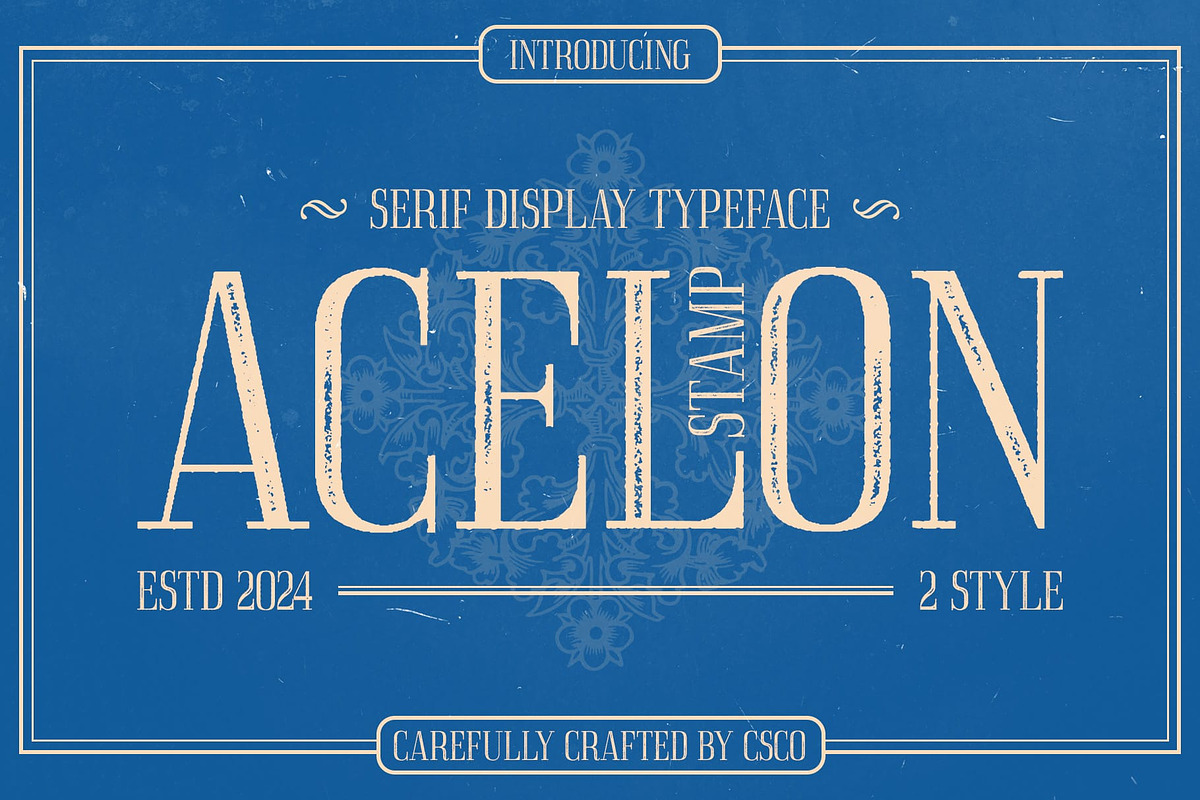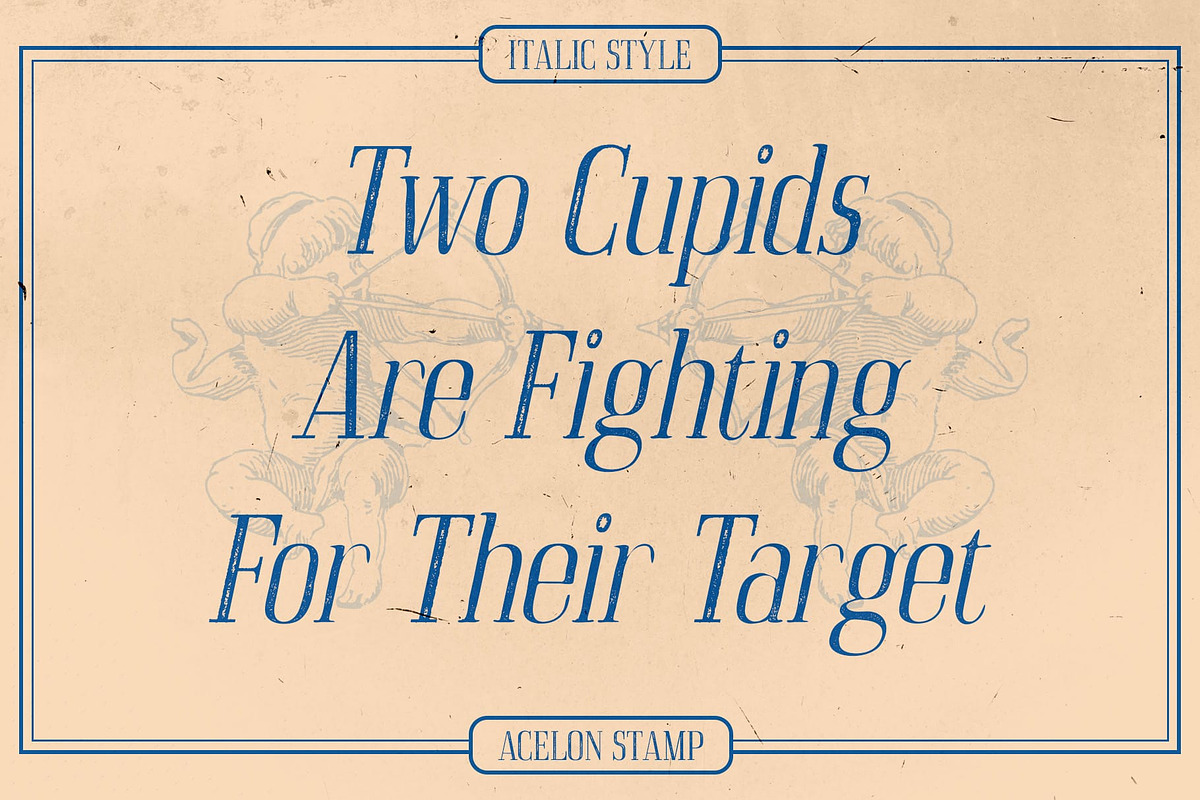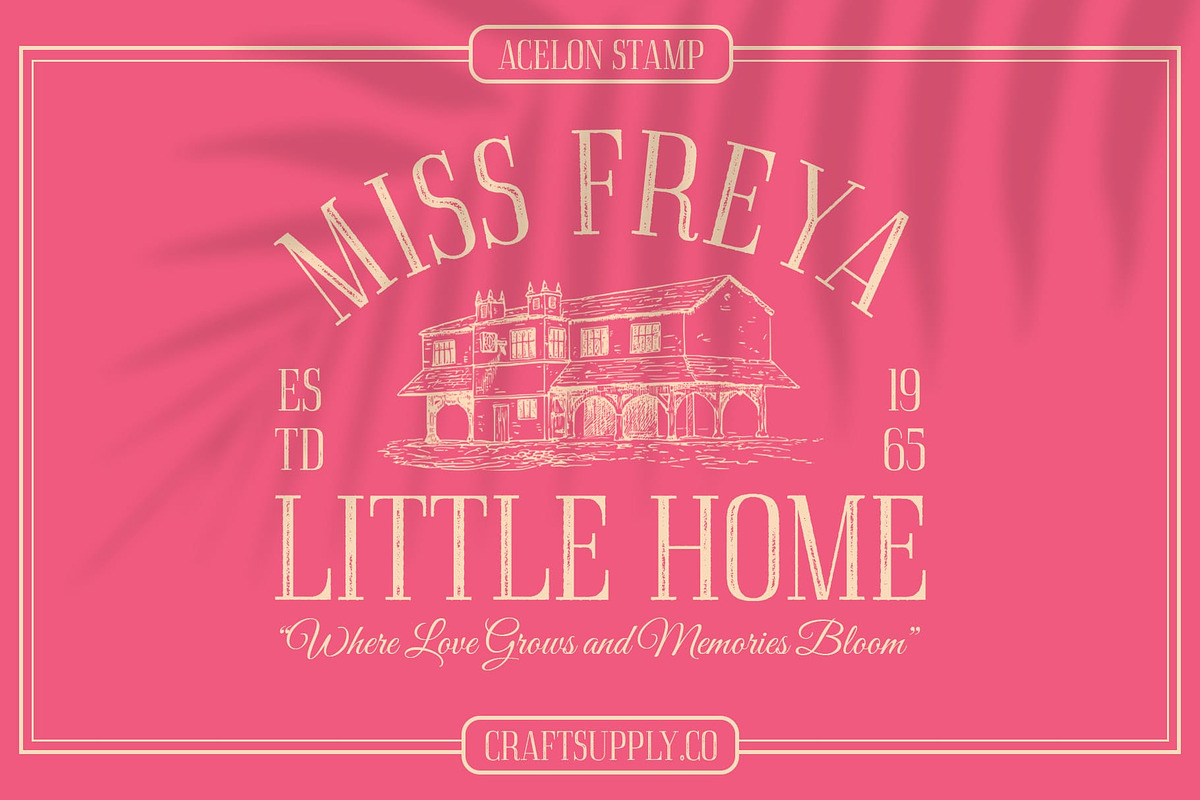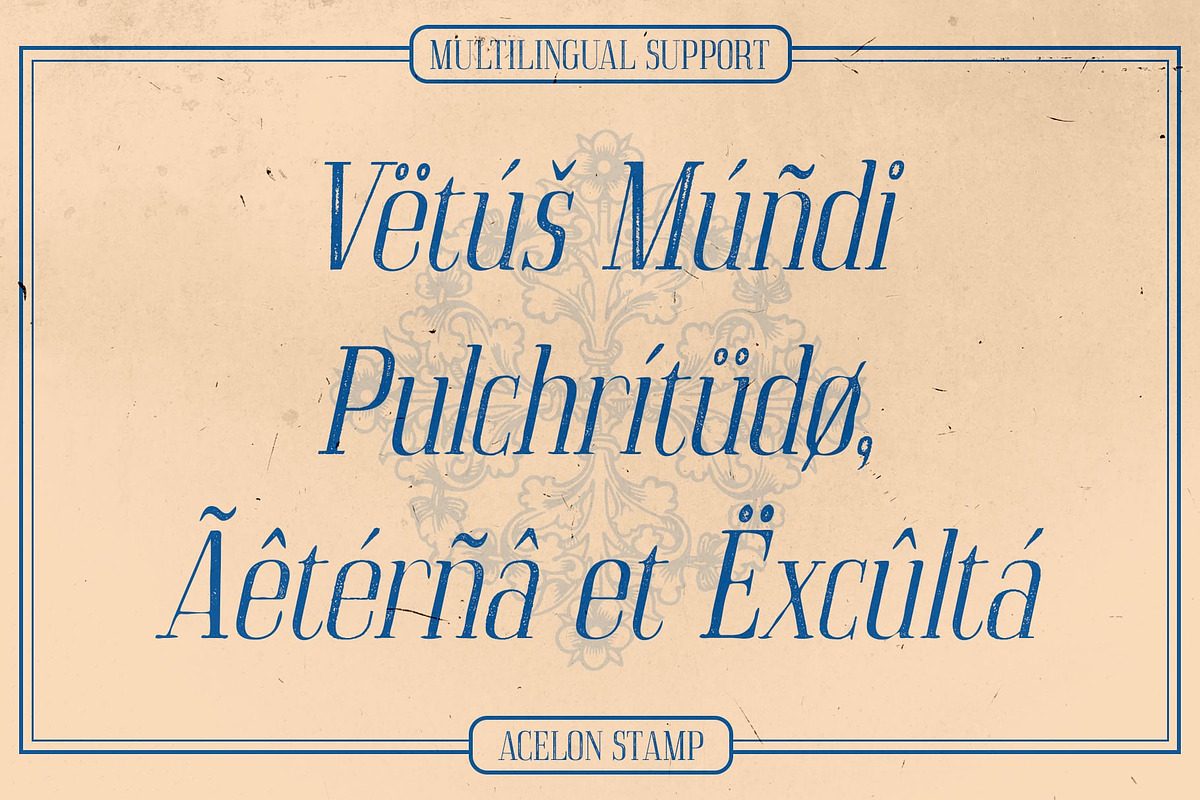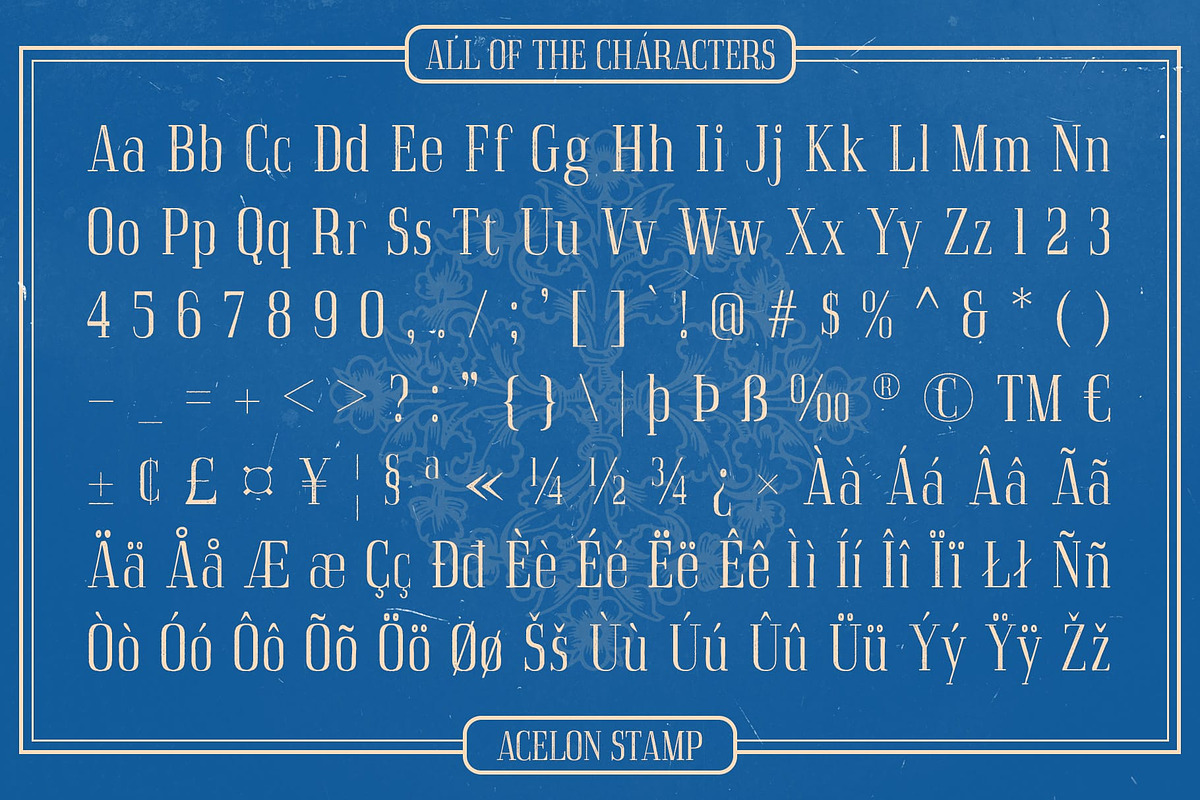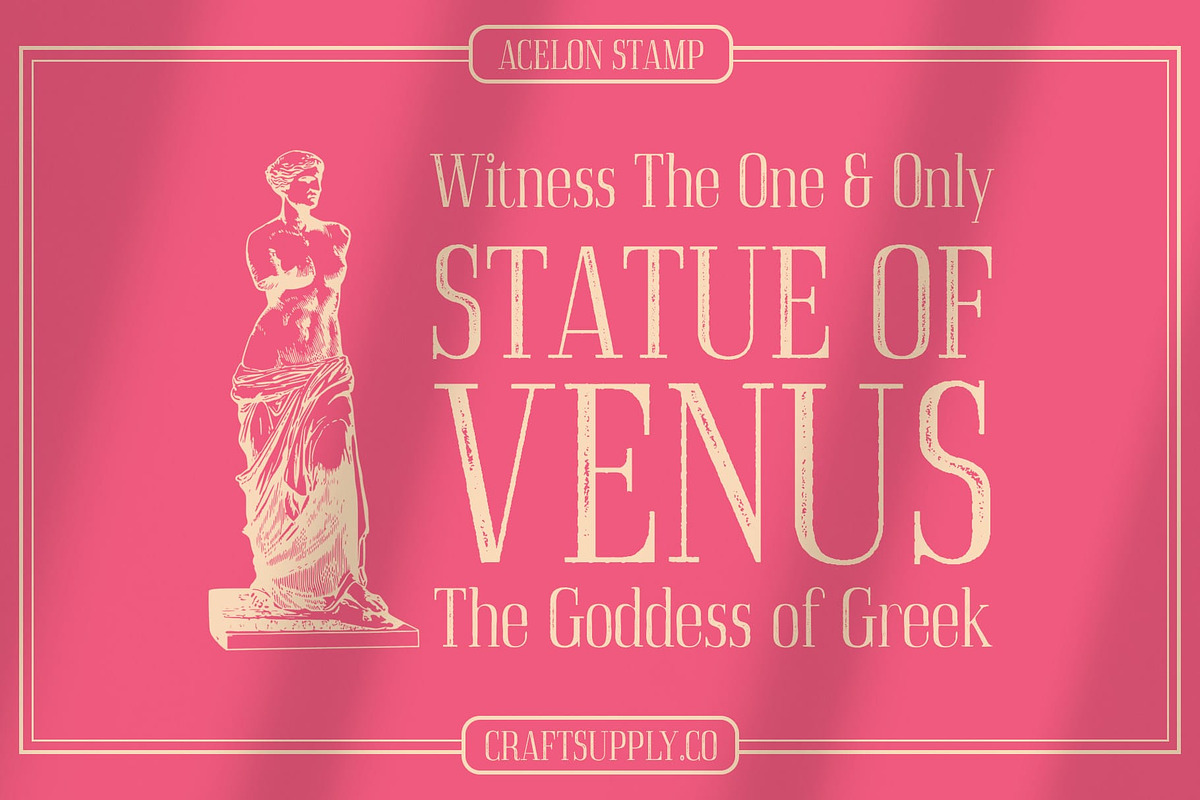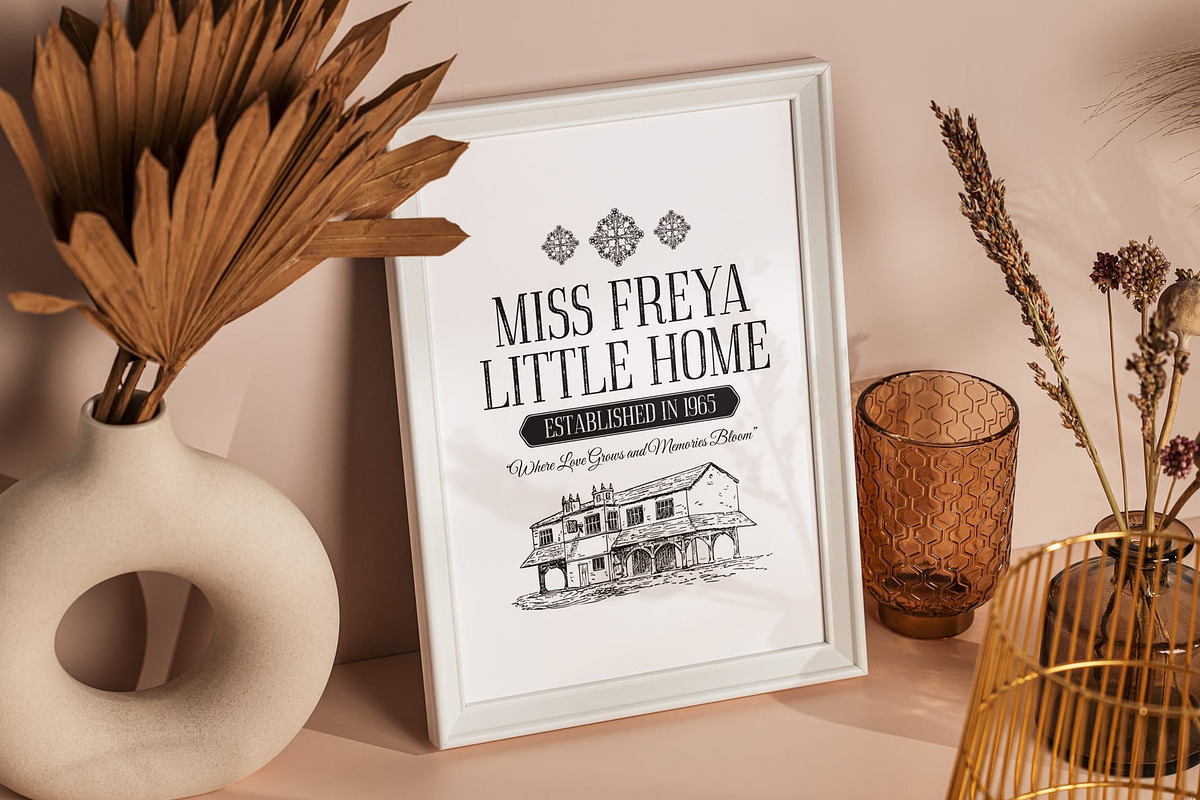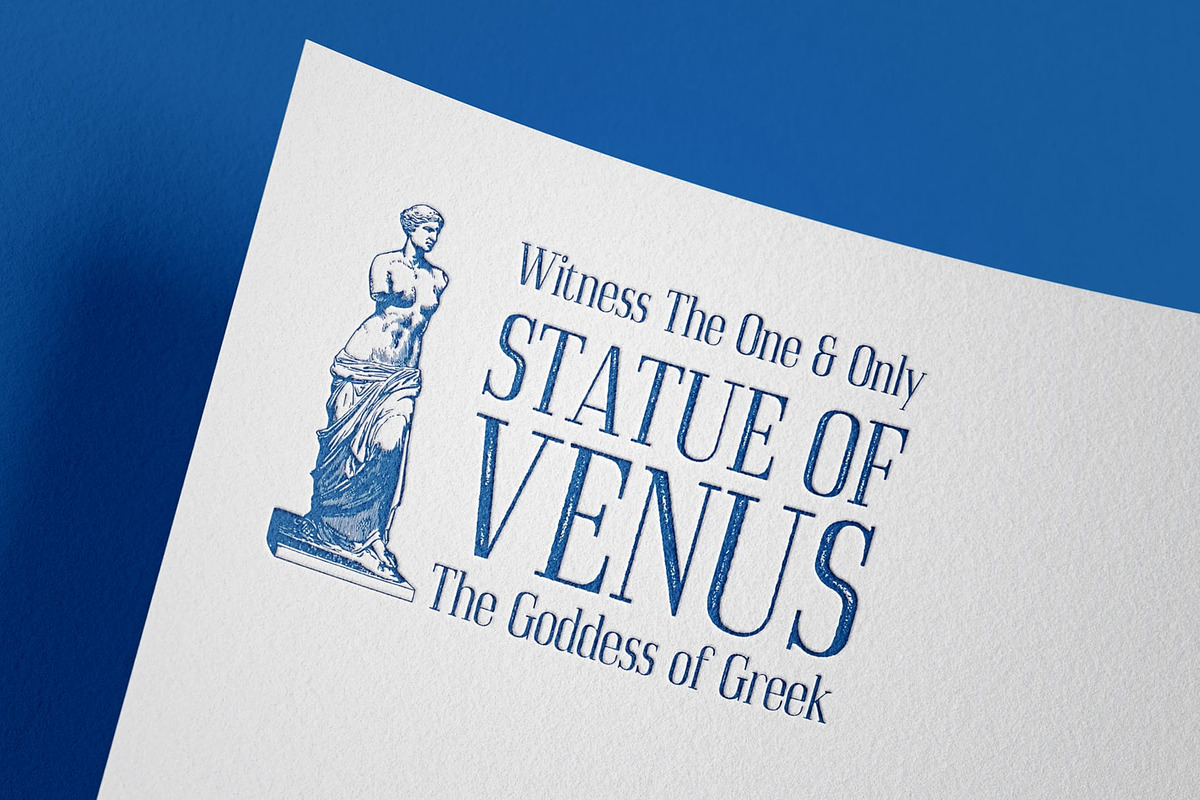
Acelon Stamp
Acelon Stamp Font: Modern Sophistication with Vintage Texture
Condensed Modern Serif with Rugged Stamp Effect Acelon Stamp is a modern serif font distinguished by its condensed design and narrow letterforms, offering a sleek and contemporary aesthetic. The font’s tight packing of letters creates a clean and sophisticated appearance, ideal for designs requiring a polished and professional look.
Vintage Tactile Quality with Rugged Texture The addition of a stamp effect introduces a rugged, textured finish to Acelon Stamp, blending its modern structure with a vintage, tactile quality. This stamp-like texture enhances the font’s visual appeal, adding a layer of old-school charm that contrasts beautifully with its contemporary design. The result is a font that combines the best of both worlds: modern sophistication with a distinctive, retro flair.
Perfect for Impactful and Memorable Visuals Acelon Stamp is ideal for creating impactful visuals that require both elegance and a touch of nostalgia. Whether you’re designing branding materials, posters, or promotional content, this font provides a memorable presence that stands out. Its blend of sleek modernity and vintage texture ensures that your designs will be both striking and memorable, making it a versatile choice for various creative projects.